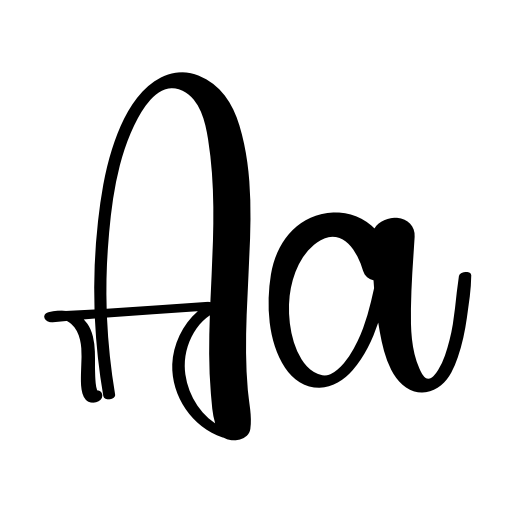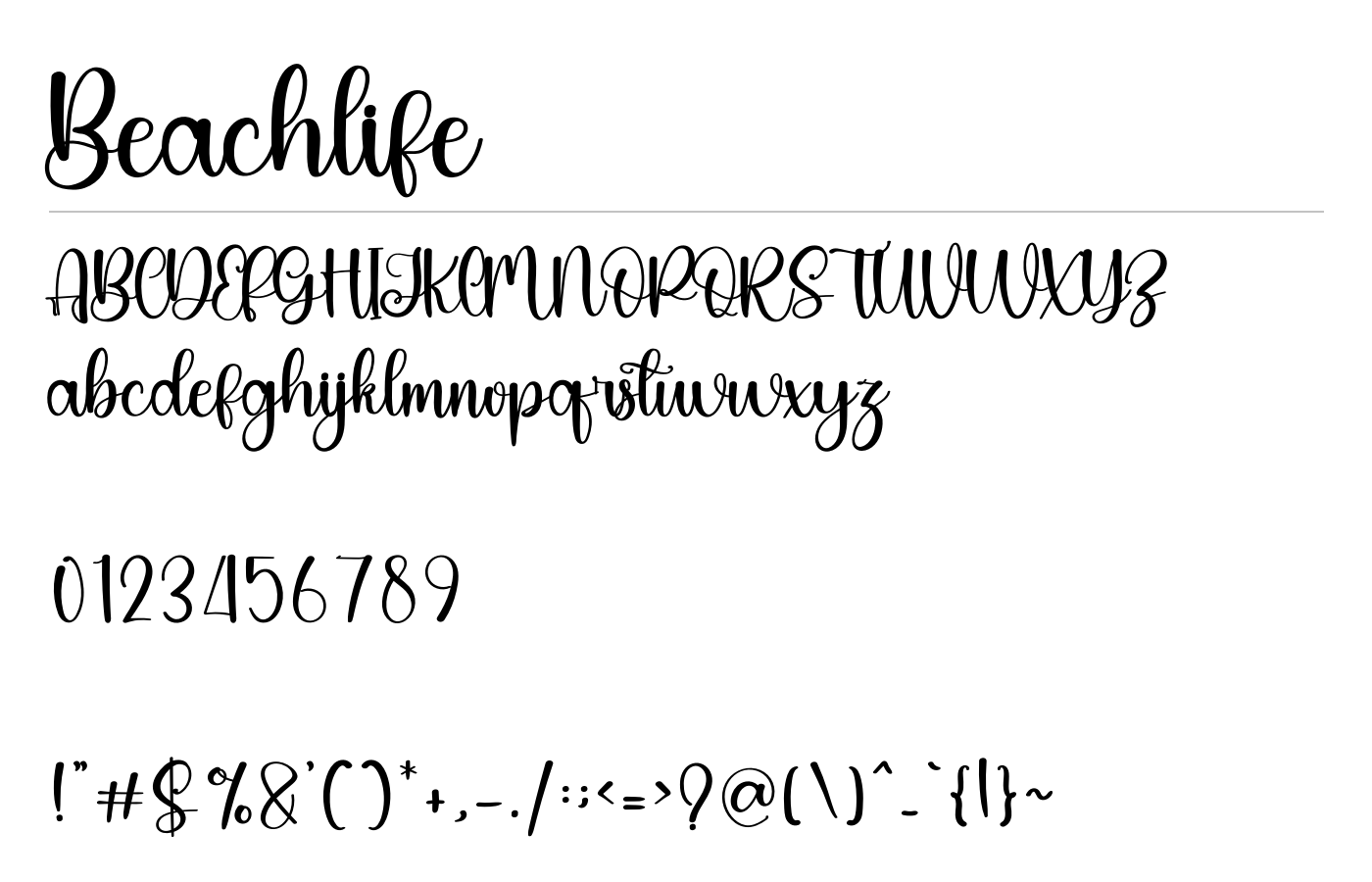
Beachlife is a playful, handwritten script font with a lively and casual feel. It features tall, narrow letterforms with smooth, flowing strokes and a hand-drawn charm that works well for creative projects, invitations, and branding that seeks a friendly, approachable vibe. This font shines in headlines and decorative uses where a personal, whimsical touch is desired.
Beachlife Font